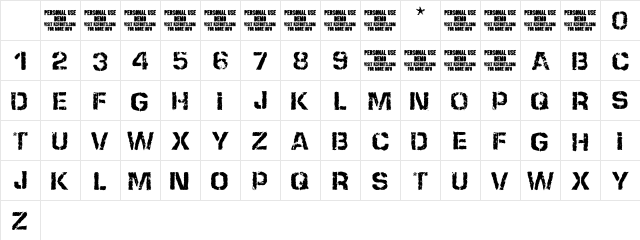
Complete None Shall Pass Regular glyph index. Displaying only characters natively supported by None Shall Pass Regular font.
None Shall Pass is a composed and adaptable typeface that performs quietly and consistently across a wide range of design contexts.
Pro Tip: Use None Shall Pass in both headline and body roles to test its range before committing to a single application.